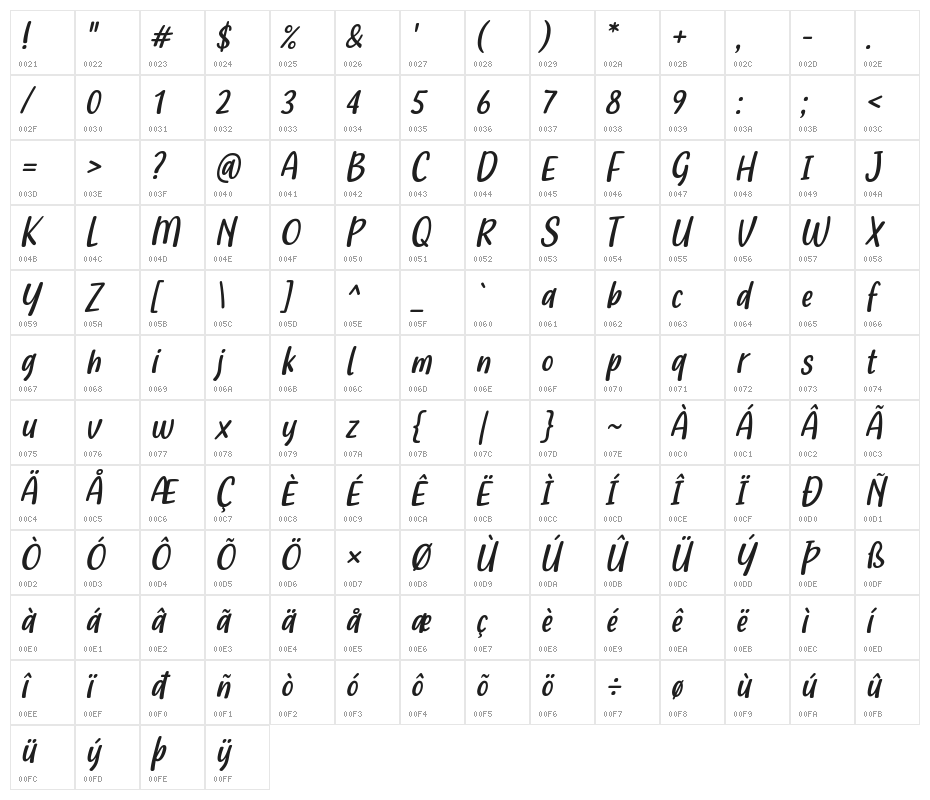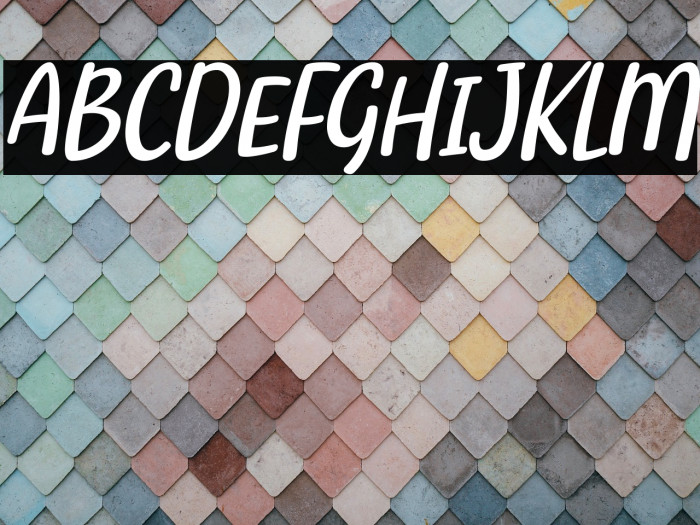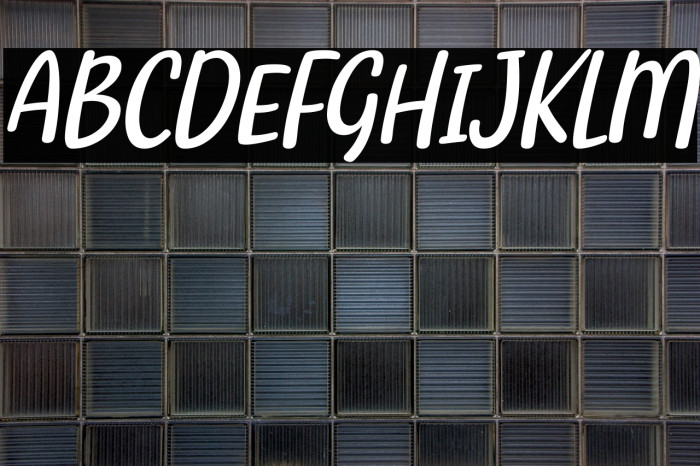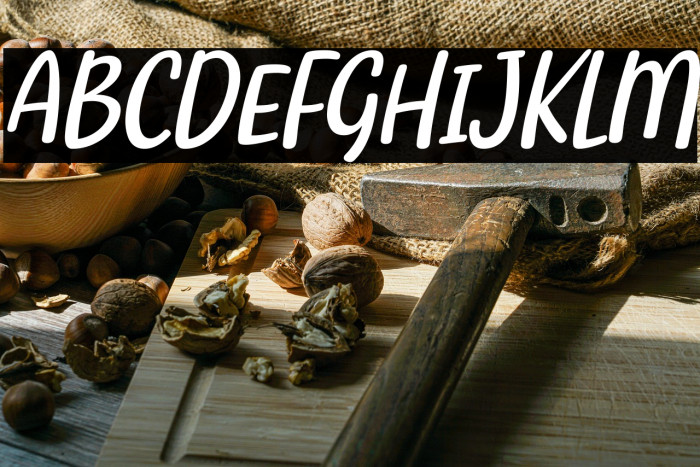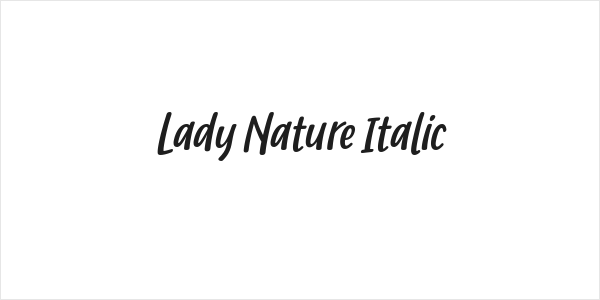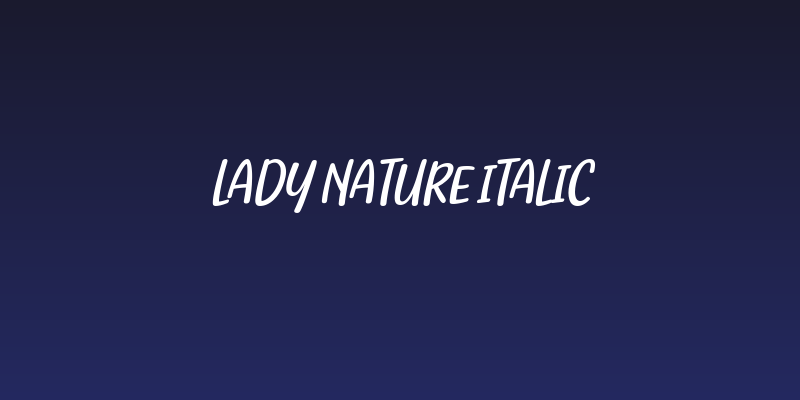
Lady Nature Italic Font
Lady Nature Italic Description
This font exhibits a flowing, cursive style with a natural and organic feel. The characters are slightly slanted, giving it an italic appearance that enhances its elegance and fluidity. The strokes are smooth and consistent, with rounded edges that contribute to its approachable and friendly demeanor. The uppercase letters maintain a consistent height, while the lowercase letters are slightly smaller, creating a harmonious balance. The numerals are clear and legible, matching the overall style of the alphabet. Special characters are well-integrated, maintaining the same fluidity and style as the letters and numbers. This font is versatile, suitable for a variety of design projects that require a touch of elegance and personality.
Overall StyleElegant, Natural
Use CaseLogos, Invitations, Greeting Cards
Proposed ProjectsIdeal for wedding invitations, greeting cards, personal branding, and nature-themed designs.